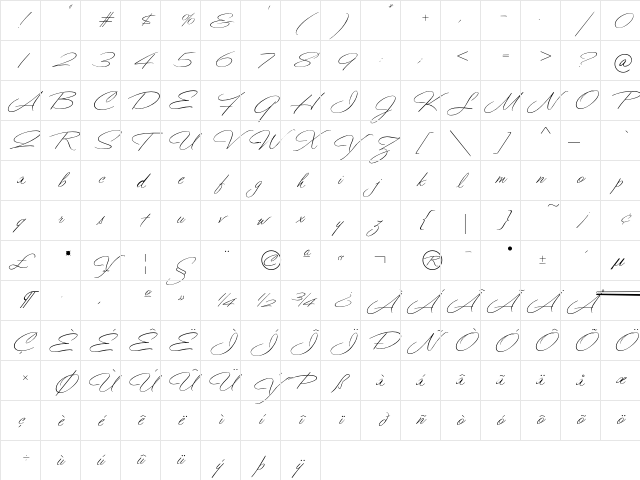
Ballerina Pro Regular
Design Context for Ballerina Pro
Ballerina Pro is a composed and adaptable typeface that performs quietly and consistently across a wide range of design contexts.